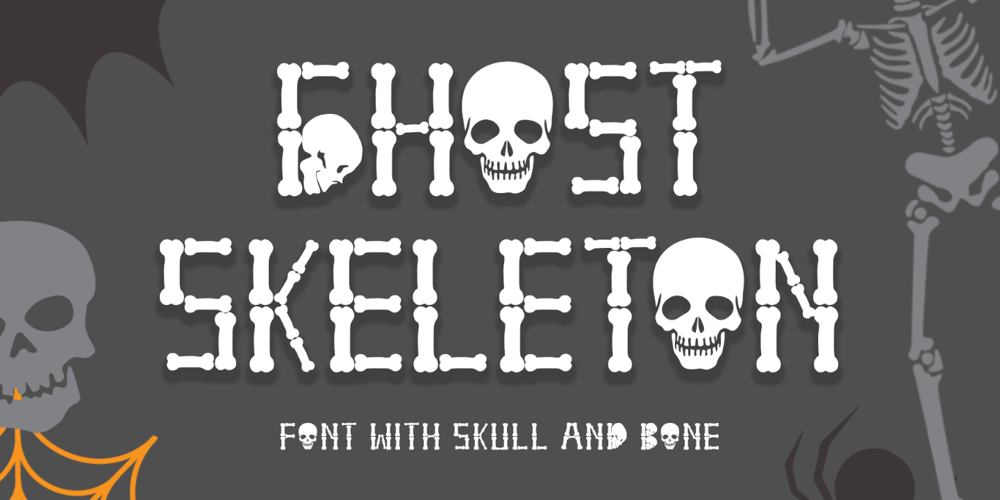
Ghost Skeleton Font Family was designed by Isroni Yoga Prasetya and published by Yoga Letter. Ghost Skeleton contains 1 styles and family package options. “Ghost Skeleton” is a font made from bones and skull shapes. This font is very simple, easy to use and consists of uppercase, lowercase, numerals, punctuations, and multilingual support. Very suitable for Halloween, comics, movie titles, invitations, social media and more.